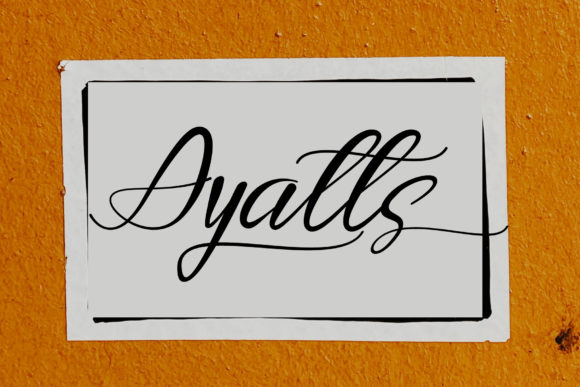
Dive into the realm of Ayatts, an enchanting script font that exudes timeless elegance and contemporary charm. A masterpiece crafted by Designvector10, Ayatts draws inspiration from the enduring beauty of classic calligraphy, bestowing your designs with an aura of sophistication and heartfelt expression.
Meticulously balanced and boasting a captivating variation in stroke thickness, Ayatts strikes a perfect equilibrium between delicate finesse and captivating boldness. Neither too thin nor overly thick, this font commands attention without overwhelming your designs, ensuring that your message shines through with clarity and impact.
Whether you seek to craft captivating business flyers, design eye-catching logos, or add a touch of elegance to your social media posts, Ayatts stands as your steadfast companion. Its inherent versatility lends itself effortlessly to a myriad of creative endeavors, allowing you to unleash your imagination and produce truly remarkable designs.
Ayatts embraces the power of OpenType features, granting you effortless access to a treasure trove of glyphs and swashes that further enhance its creative potential. Unleash your inner artist and explore the boundless possibilities of customization, tailoring Ayatts to perfectly reflect your unique vision and artistic style.
With Ayatts as your font of choice, you embark on a journey of creative empowerment, transforming your designs into captivating works of art. Its timeless essence transcends the boundaries of fleeting trends, ensuring enduring relevance and lasting appeal. Make Ayatts your font of choice and witness the transformation of your designs into masterpieces that resonate with grace and elegance.